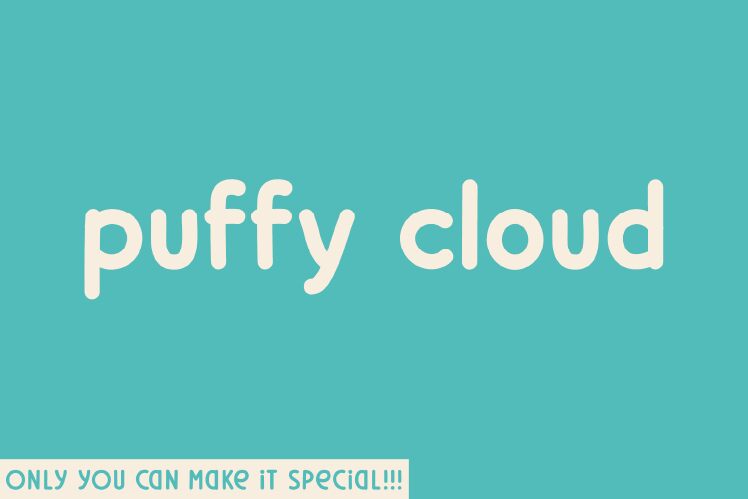
Puffy Cloud font by Hanna Bie of HannaBie Creative Studio is a delightful handwritten typeface that captures the essence of whimsical design. With its playful curves and soft, rounded edges, this expanded font evokes the carefree spirit of childhood imagination. The airy and breezy aesthetic makes it stand out in creative projects, adding a touch of lightheartedness.
Ideal for children's books, greeting cards, or playful branding designs, Puffy Cloud brings a unique personality to any visual context. Its charm makes it an excellent choice for designers looking to infuse their work with friendliness and warmth.